Choosing the best sans serif fonts with ligatures for quote designs can make short messages feel more distinctive, expressive, and visually polished. Quotes often rely on only a few words to create impact, so every letter matters. Ligatures can add personality by connecting selected characters or creating more fluid letter combinations without forcing the entire design into a script style.
Sans serif fonts with ligatures are especially useful for social media quotes, posters, branding graphics, editorial layouts, merchandise, and campaign visuals. They can keep the clean structure of a sans serif while introducing subtle decorative details that help the typography feel less generic. The key is choosing a font that remains readable while giving the quote enough visual character.
What Are Ligatures in Sans Serif Fonts?
Ligatures are specially designed combinations of two or more characters. Instead of showing each letter separately, the typeface replaces certain combinations with a connected or alternate form.
Common ligatures may appear in combinations such as “fi,” “fl,” “tt,” or other custom pairs designed by the font creator. In more expressive typefaces, ligatures can become a major stylistic feature rather than a small technical detail.
Why Ligatures Work Well for Quotes
Quotes are usually shorter than body copy, which gives designers more freedom to use distinctive typography. A ligature can create an unexpected detail in a word and make the message feel more handcrafted.
For example, a short lifestyle quote can use a clean sans serif with one or two expressive connections. The overall design remains modern, but the typography feels more memorable. However, ligatures should not reduce readability. If too many letters merge or become difficult to recognize, the quote may lose its message.
Best Sans Serif Fonts With Ligatures for Quote Designs
The following fonts can support different quote styles, from refined and minimal to bold and expressive.
1. Qasther
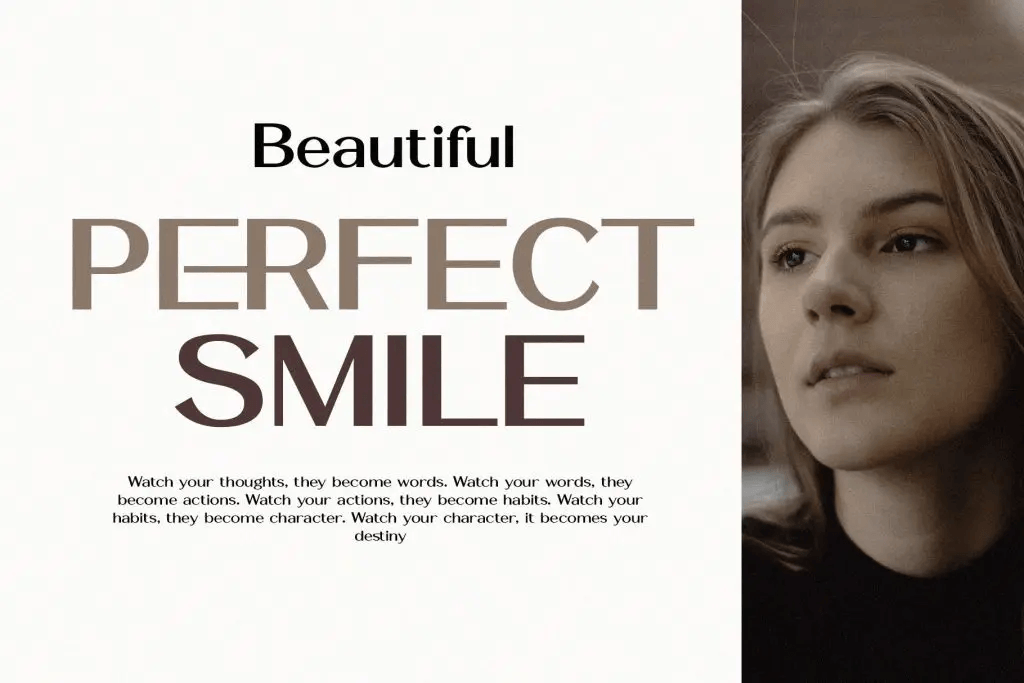
2. Cheryl
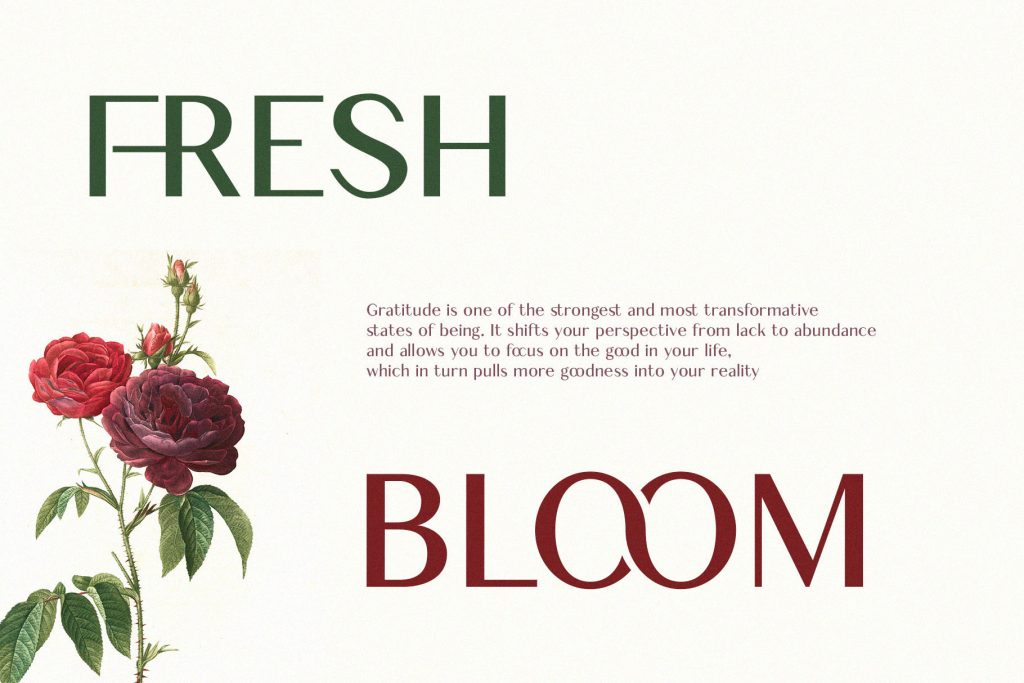
3. Hoodger
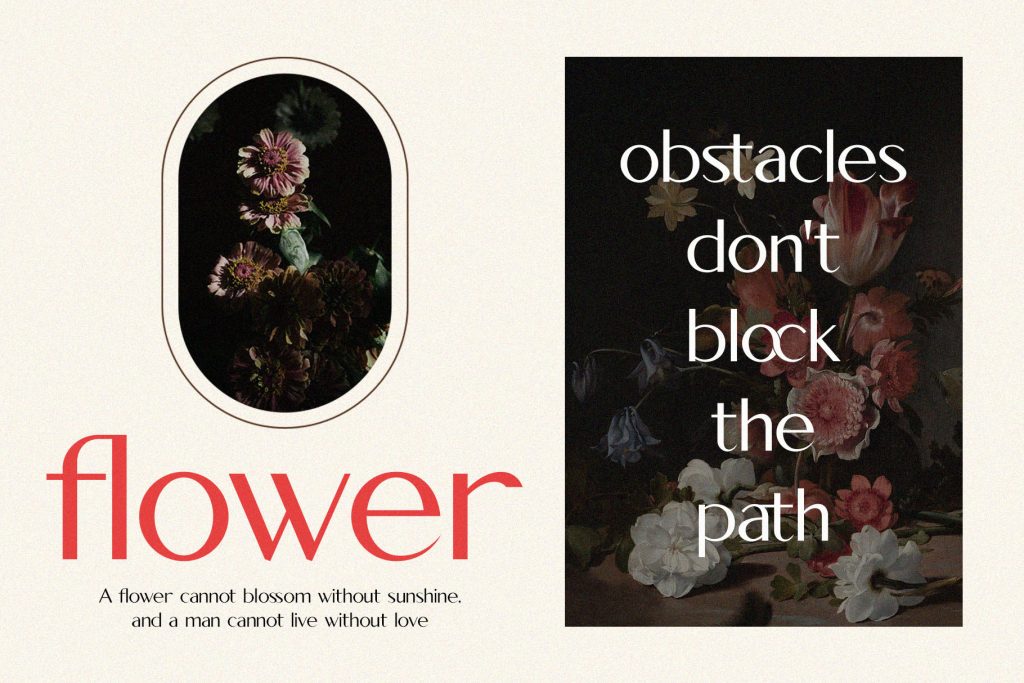
4. Kefhila
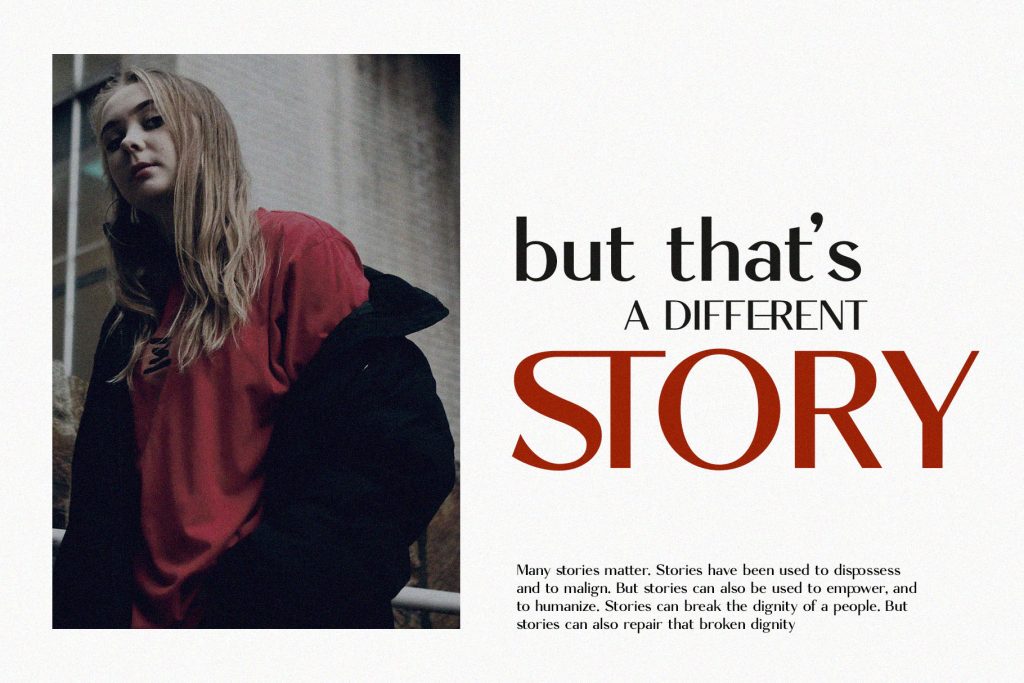
5. Fhunster
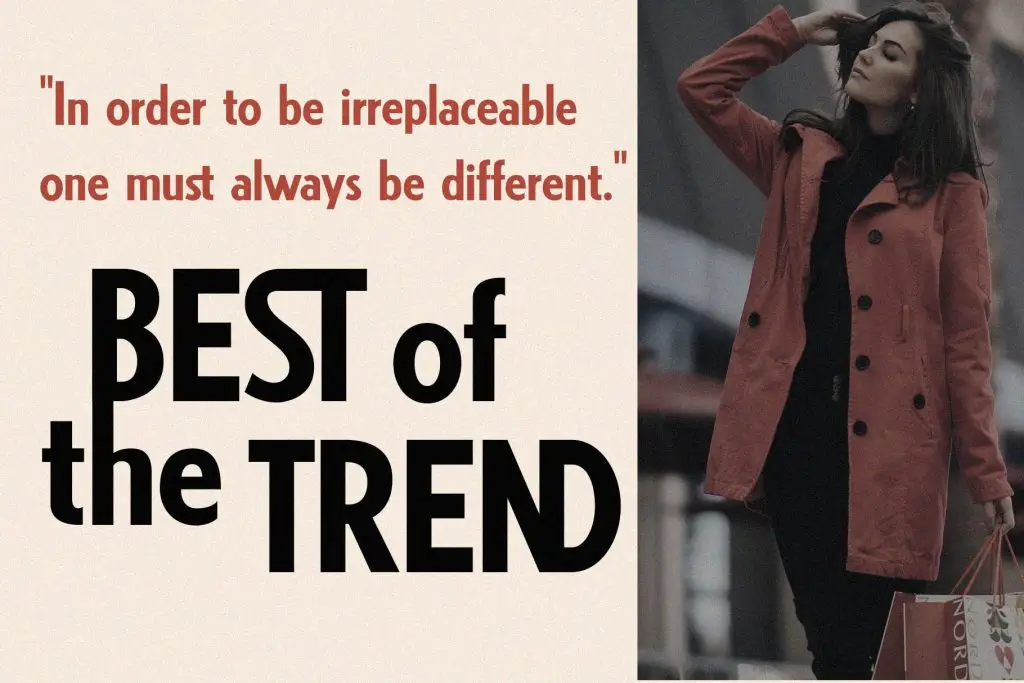
How to Choose a Ligature Font for Quotes
Not every quote needs the same typographic mood. The right font depends on the message, audience, and final format.
Match the Font to the Quote Tone
A calm quote about wellness may need softer letterforms, while a bold motivational statement can support a more dramatic font. Before selecting a typeface, identify the mood of the quote. Is it elegant, playful, confident, emotional, or rebellious? The font should reinforce that feeling rather than compete with it.
Check the Ligatures Before Designing
Some fonts include only standard ligatures, while others offer many stylistic alternatives. Test the actual words you plan to use before choosing the final typeface. A font may look impressive in a specimen but offer fewer interesting ligatures in your specific quote. Typing the complete sentence helps you see how the connections really behave.
Keep Readability First
A quote is still a message. If viewers need too much effort to identify the words, the design becomes less effective. Use the most expressive ligatures in selected words rather than forcing them into every line. This creates visual interest without sacrificing clarity.
Pair Ligature Sans Serif Fonts Carefully
Fonts with ligatures already have a distinctive personality, so they usually need a simpler companion. A clean sans serif can handle captions, dates, or usernames. A restrained serif may also work if you want a more editorial contrast.
Choose a Font That Supports the Message
The best sans serif fonts with ligatures for quote designs should do more than look unusual. They should help the message feel intentional, memorable, and easy to understand.
Qasther works well for clean and modern quotes, Cheryl adds a softer, stylish tone, Hoodger creates stronger impact, Kefhila supports refined layouts, Fhunster feels energetic, and Shaqera offers a contemporary balance between personality and clarity.